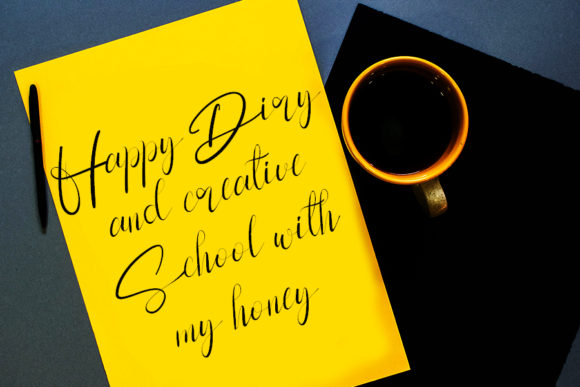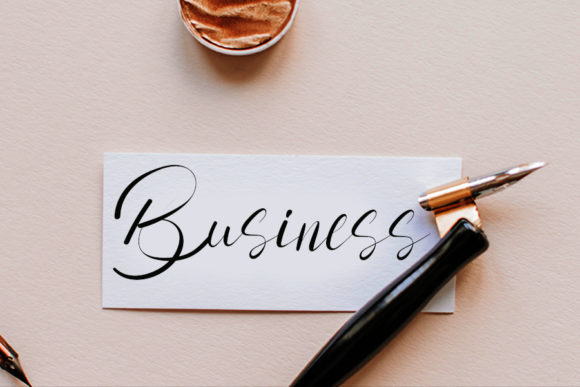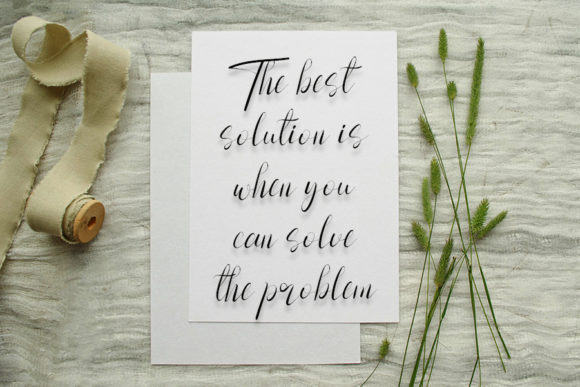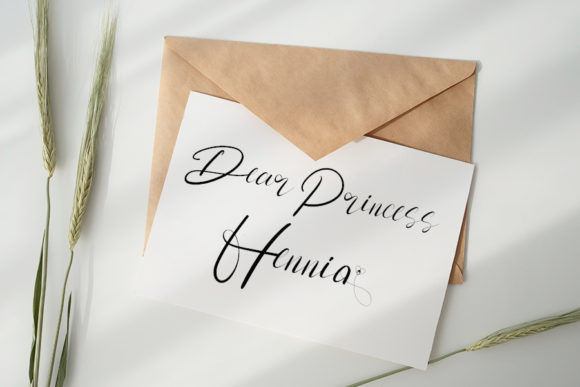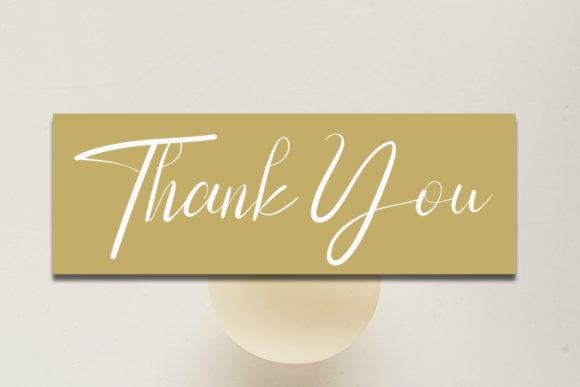
Introduction to Magglia Font
As a creative, there’s nothing quite like the thrill of bringing a new project to life. The blank canvas, the blank page – it’s a world of endless possibilities. And sometimes, all it takes is the right design resource to spark that creative spark. For many designers, that spark comes in the form of a beautiful, high-quality font. Enter the Magglia Font, a stylish script font that’s sure to elevate any creative project.
With its bold letters and delicate swashes, the Magglia Font is a design dream come true. Whether you’re working on a clothing design, a YouTube video, or a Facebook banner, this font is the perfect addition to your toolkit. And with its PUA encoding, accessing the available glyphs and swashes is a breeze – no complicated coding or design expertise required.
Key Features of Magglia Font
- High-quality design resource for creative projects, ideal for use in digital designs, print materials, and web applications.
- Transparent background and high-resolution design make it perfect for use on any background, including images and videos.
- Magglia Font is designed to be highly versatile, with a unique and modern style that can be used in a variety of creative projects.
Honest Review: Magglia Font
As a designer, I’m always on the lookout for high-quality design resources to elevate my creative projects. Recently, I had the opportunity to try out the Magglia Font, and I must say, it’s been a game-changer.
Here’s what works well: ✨ The Magglia Font offers a range of styles, from modern to elegant, making it perfect for various design applications. The font is also highly customizable, allowing me to tweak the size, color, and spacing to suit my design needs. Additionally, the font is available for free download, which is a huge plus for designers on a budget.
Another advantage of the Magglia Font is its transparent background, making it easy to layer with other design elements. This feature has been a lifesaver for me in my current design project.
While the Magglia Font is overall an excellent design resource, I do have a few minor complaints: ⚠️ The font can be a bit too bold for some designs, and the range of styles, although extensive, can be overwhelming for beginners.
Overall, I’m thoroughly impressed with the Magglia Font, and I highly recommend it to designers of all levels. Its high-quality design, transparency, and customization options make it a valuable addition to any design toolkit.
- High-quality design suitable for various design applications
- Customizable font with transparent background
Magglia Font
Common Use Cases for Magglia Font
The Magglia Font is a versatile design resource that can be used for various creative projects, such as logo designs, business cards, and marketing materials. Its transparent background makes it easy to use in designs with complex backgrounds.
Tips for Getting the Most Out of Magglia Font
To get the most out of the Magglia Font, use it in conjunction with other design elements, such as images and graphics. You can also experiment with different font sizes and styles to create a unique design. Remember to save your design as a high-quality file to ensure that the font looks its best.